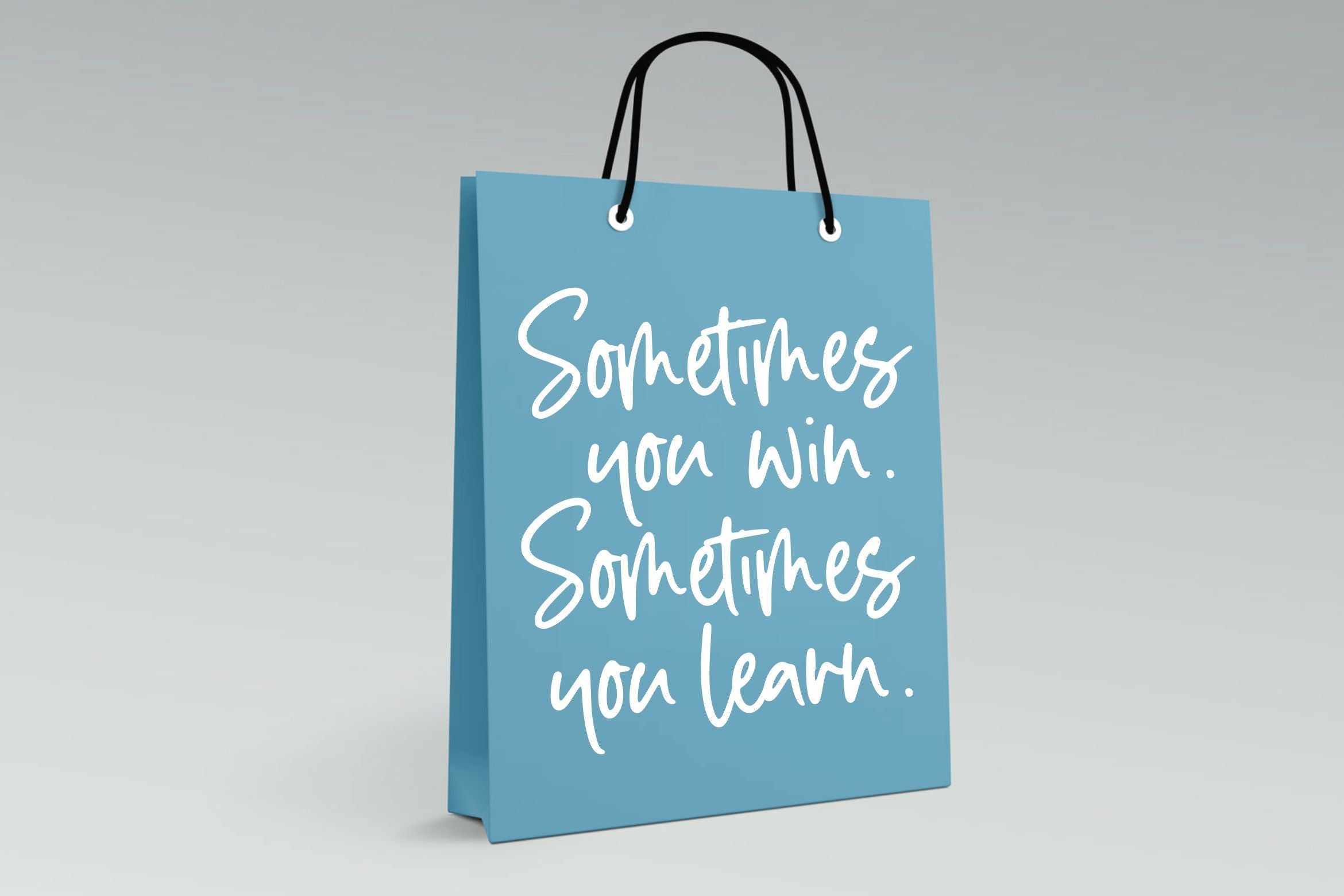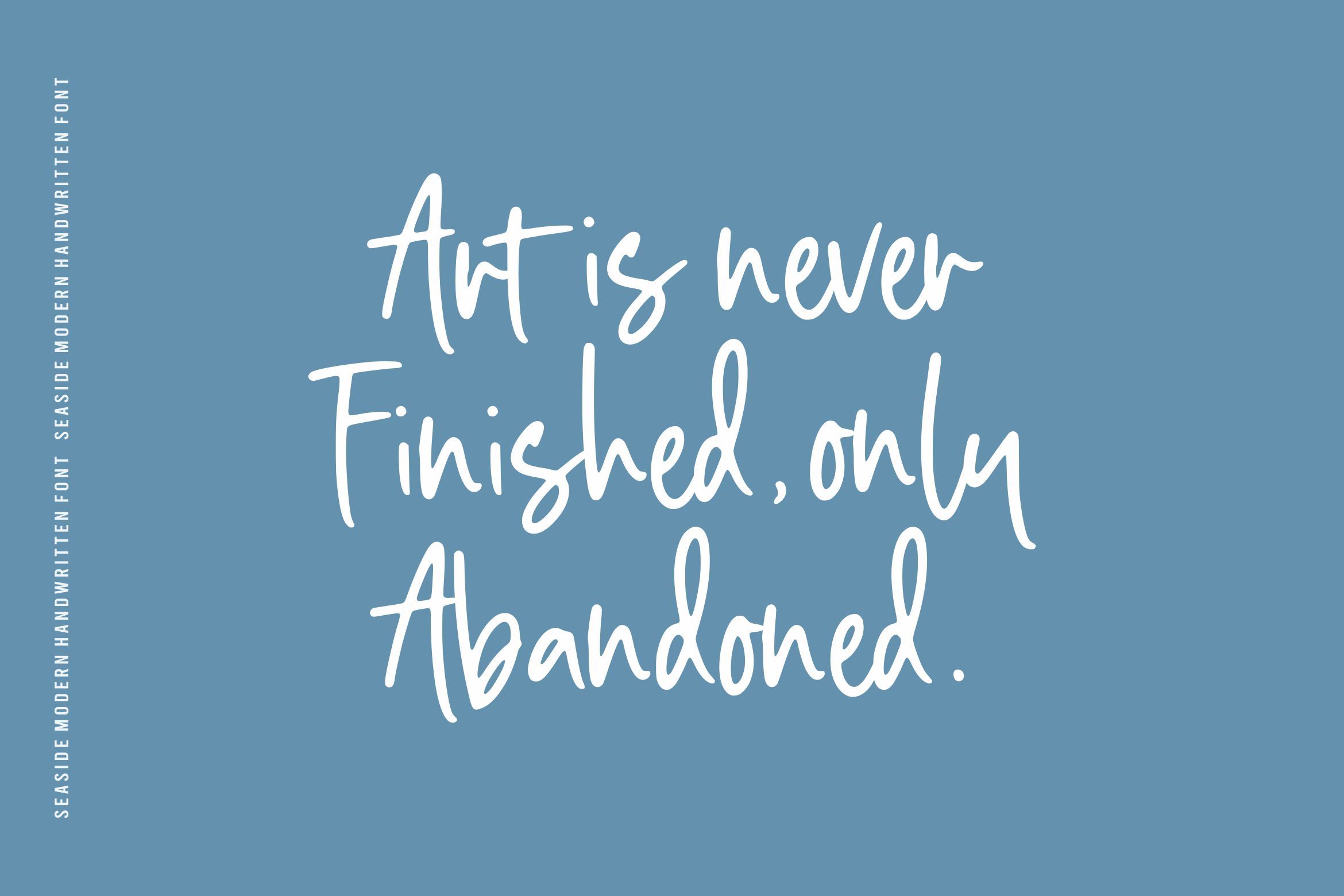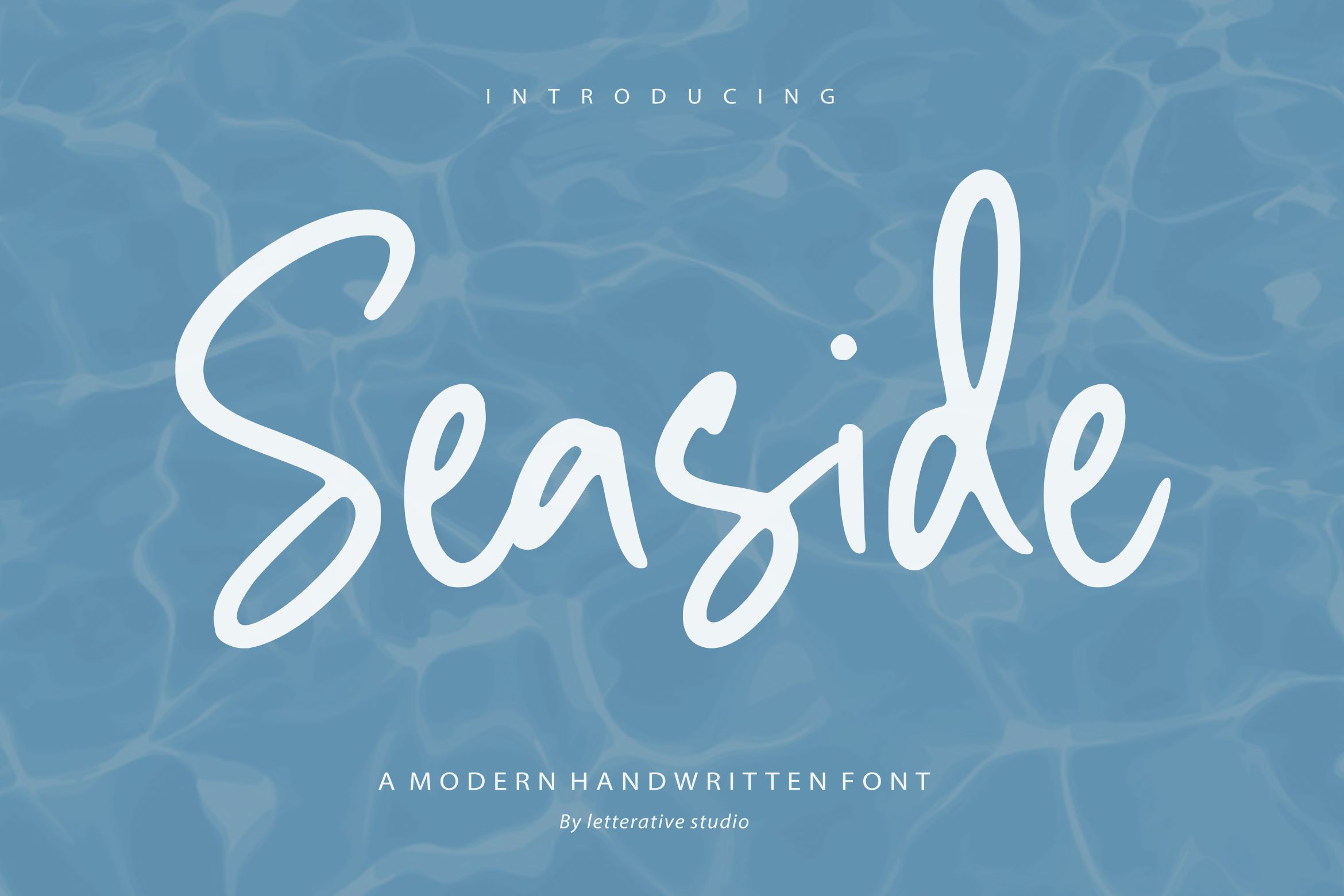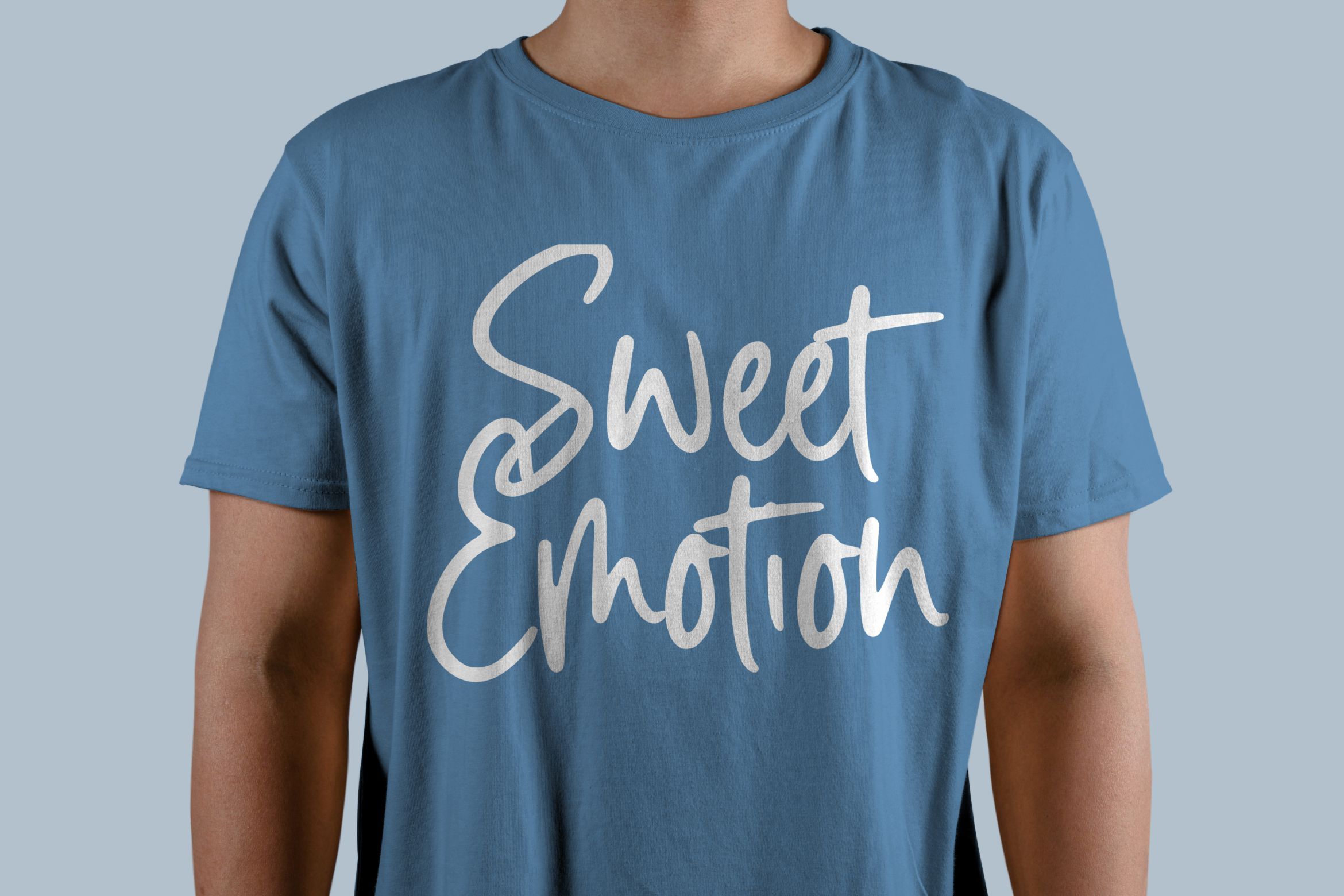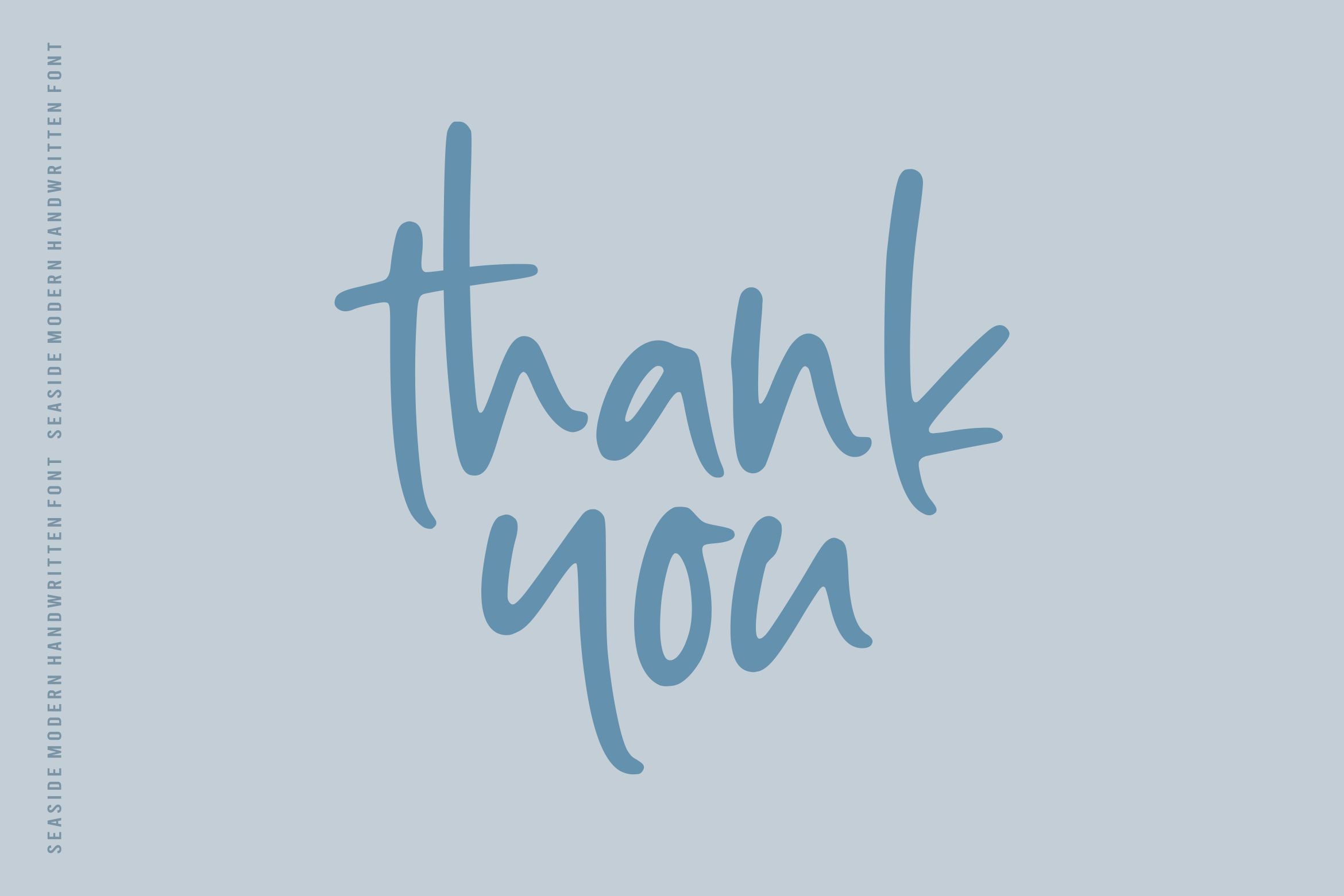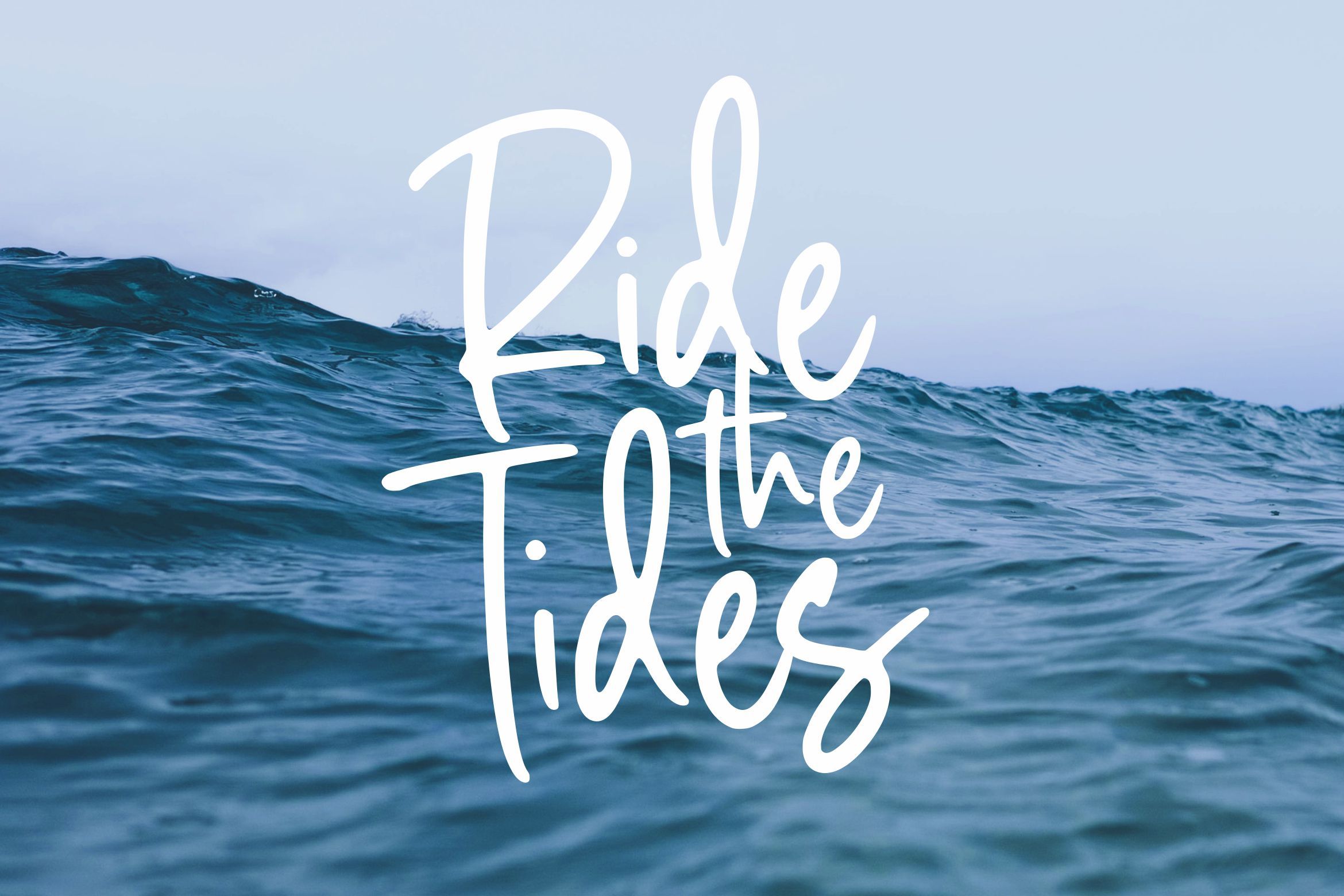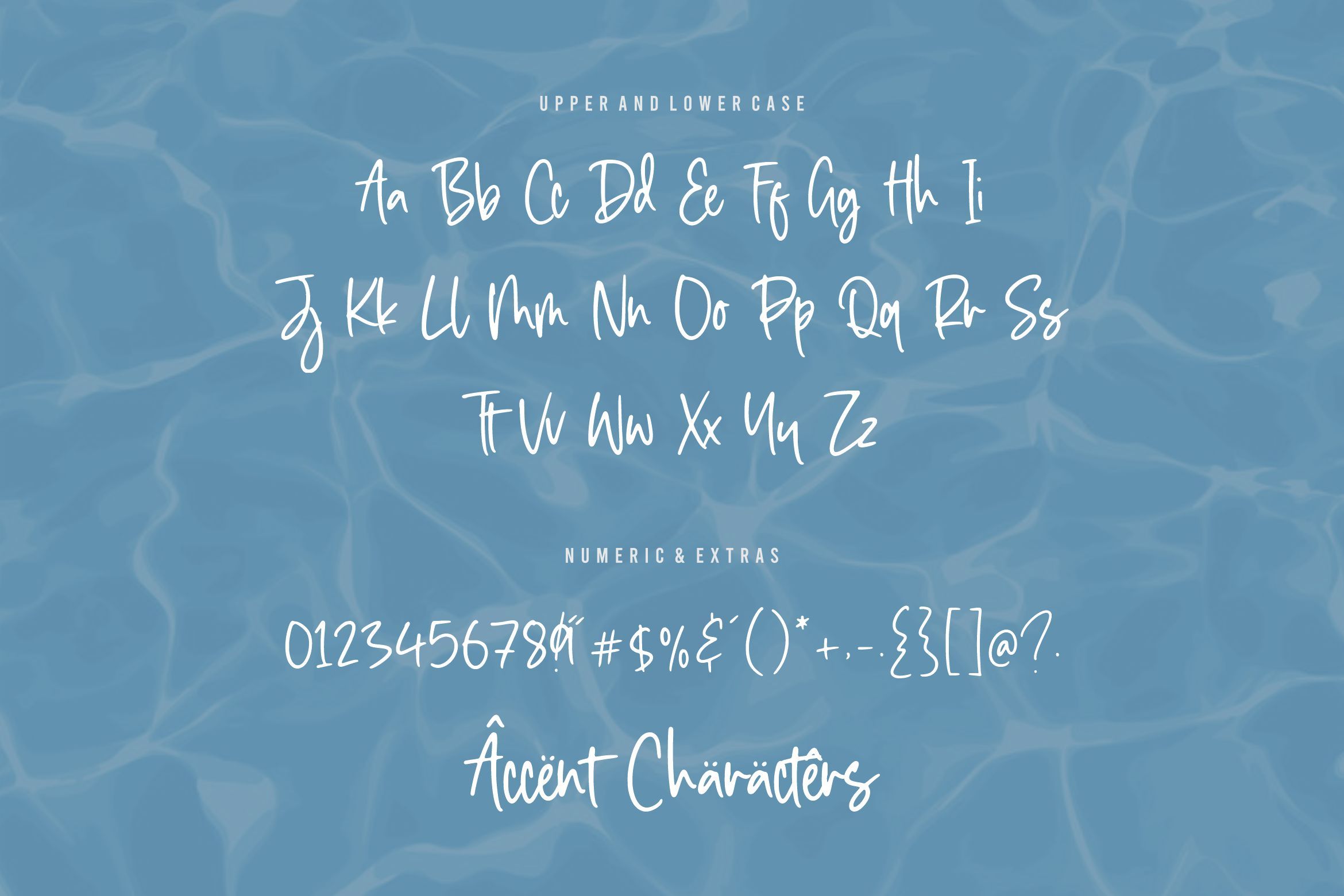
Seaside Modern Handwritten Font
About Seaside Modern Handwritten Font
Introducing by Letterative Studio : Seaside Font Seaside is a Modern Handwritten Font Seaside is a simple, modern and relaxed handwritten font. It is perfect for product packaging, branding projects, magazine covers, social media, and so much more. This font includes : TTF and OTF Seaside also multilingual support Enjoy the font! Feel free to comment or feedback Send me PM or email Thank you!